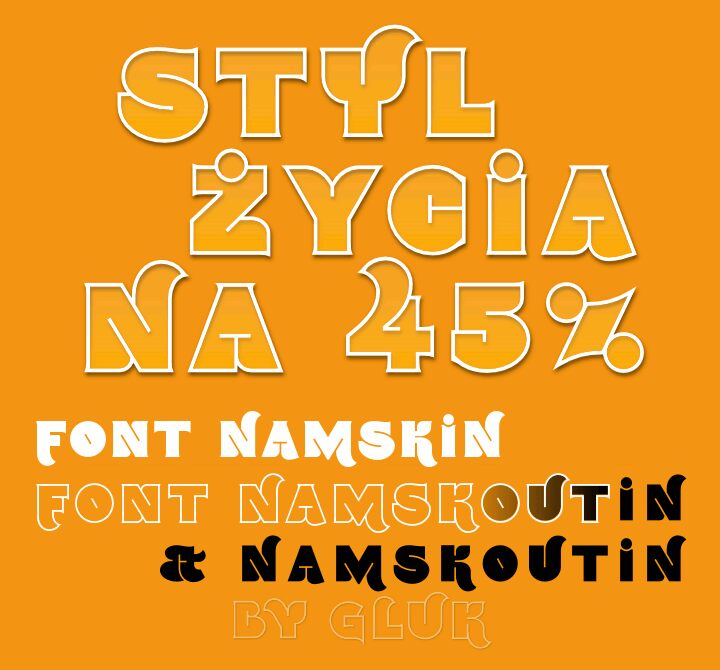
NamskoutIn by Gluk is a free decorative display font with broad, massive, tightly fitted capitals and a playful geometric build. Rounded cutouts, sliced strokes, and curling tails repeatedly interrupt the otherwise solid silhouettes.
Designers addressing contemporary music and fashion audiences can use its assertive shapes for festival posters, album artwork, apparel graphics, and club branding, with the lettering acting almost as an emblem. For magazine covers and feature openers, its unusual internal gaps and shifting contours can turn a title into the main piece of editorial imagery on the page.